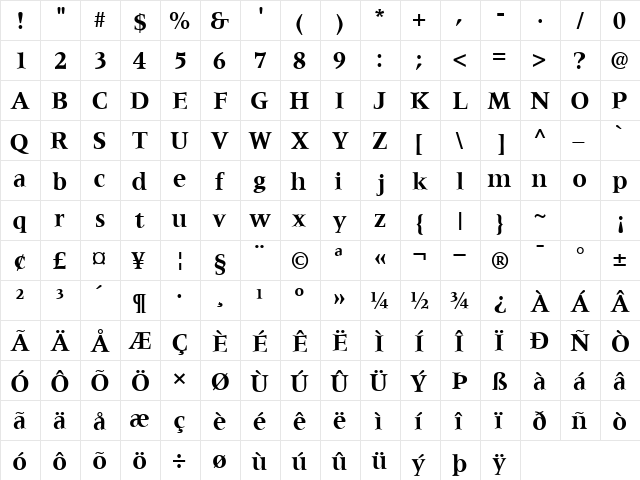
CoherentSSK Bold
Design Context for CoherentSSK Typeface
CoherentSSK is a composed and adaptable typeface that performs quietly and consistently across a wide range of design contexts. Its bold stroke weight gives it real presence on the page.